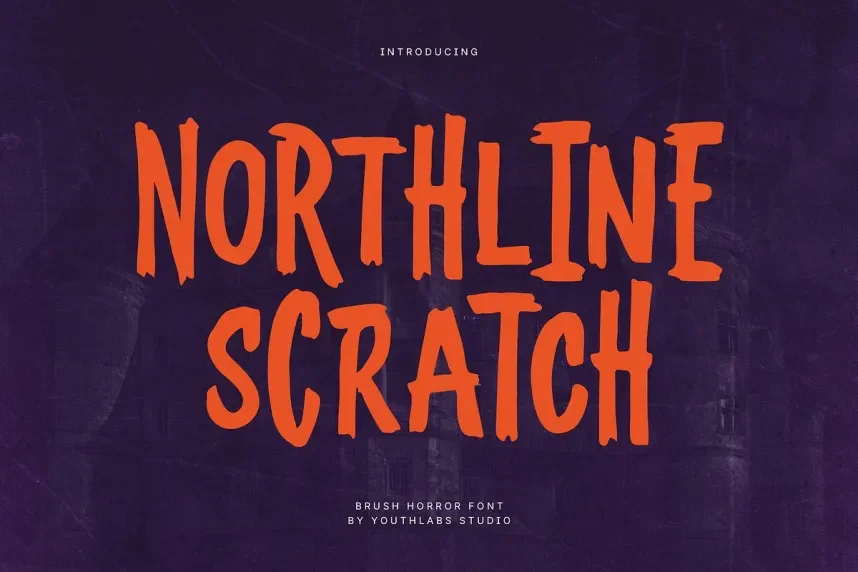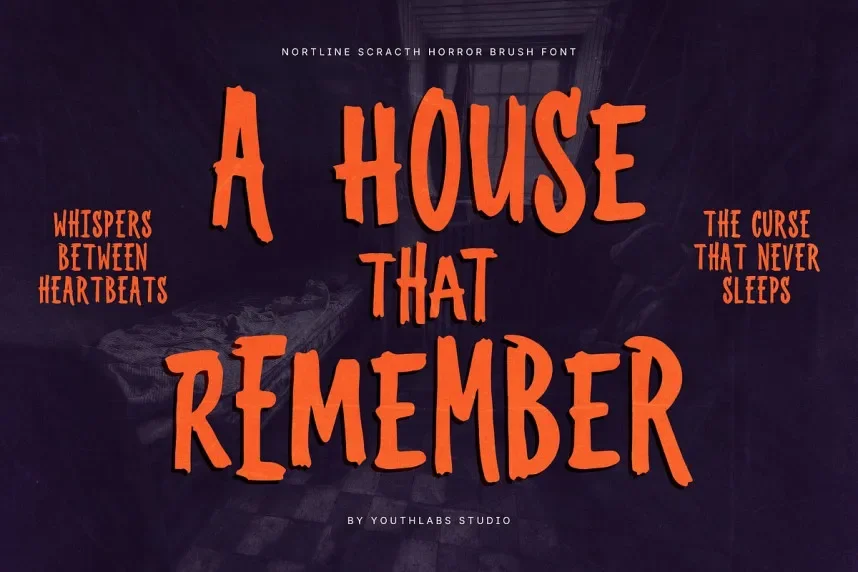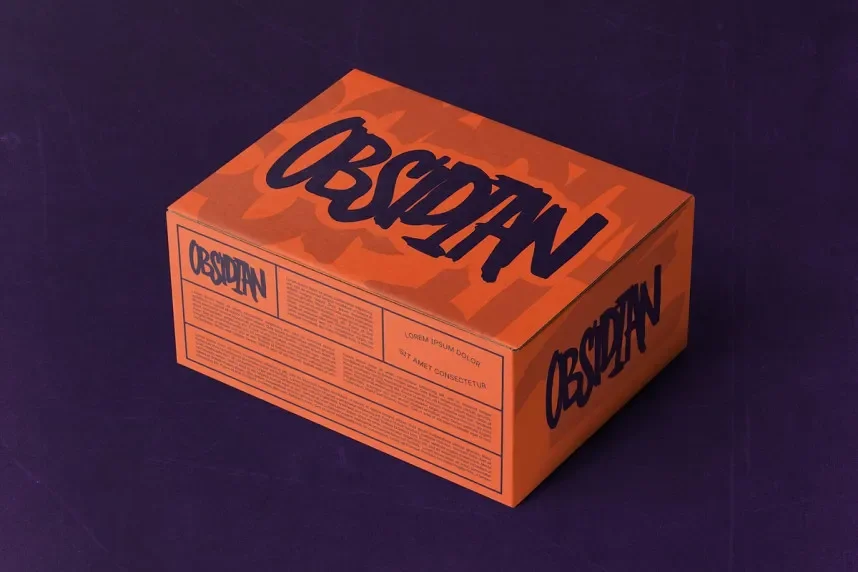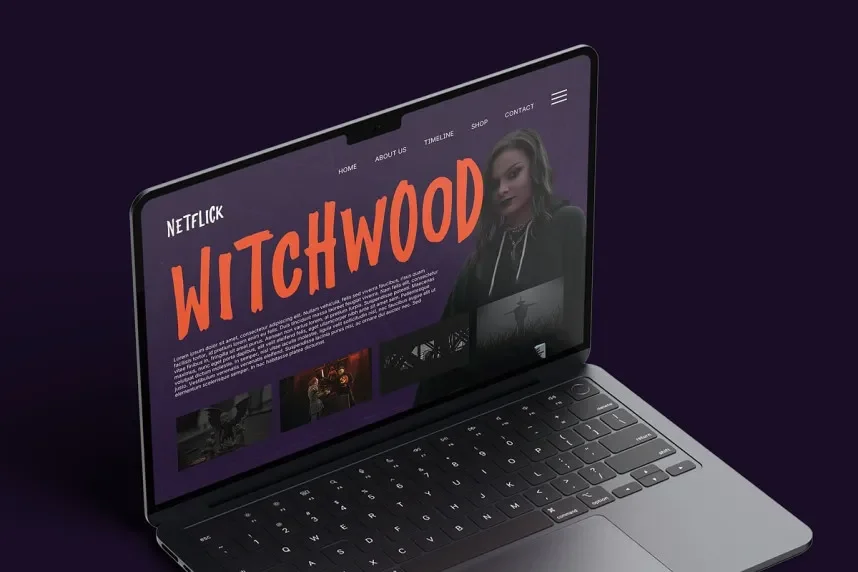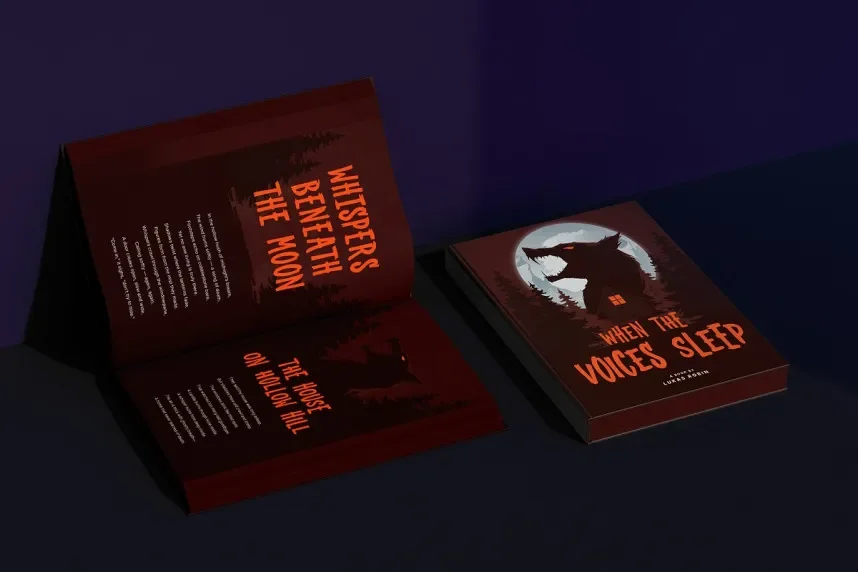
Nortline Scratch Font is a bold, handwritten display typeface with a rough, scratchy texture. Its irregular letterforms and jagged edges make it perfect for designs that need a raw, creative edge. This font works well for graffiti-style artwork, edgy branding, and promotional materials.